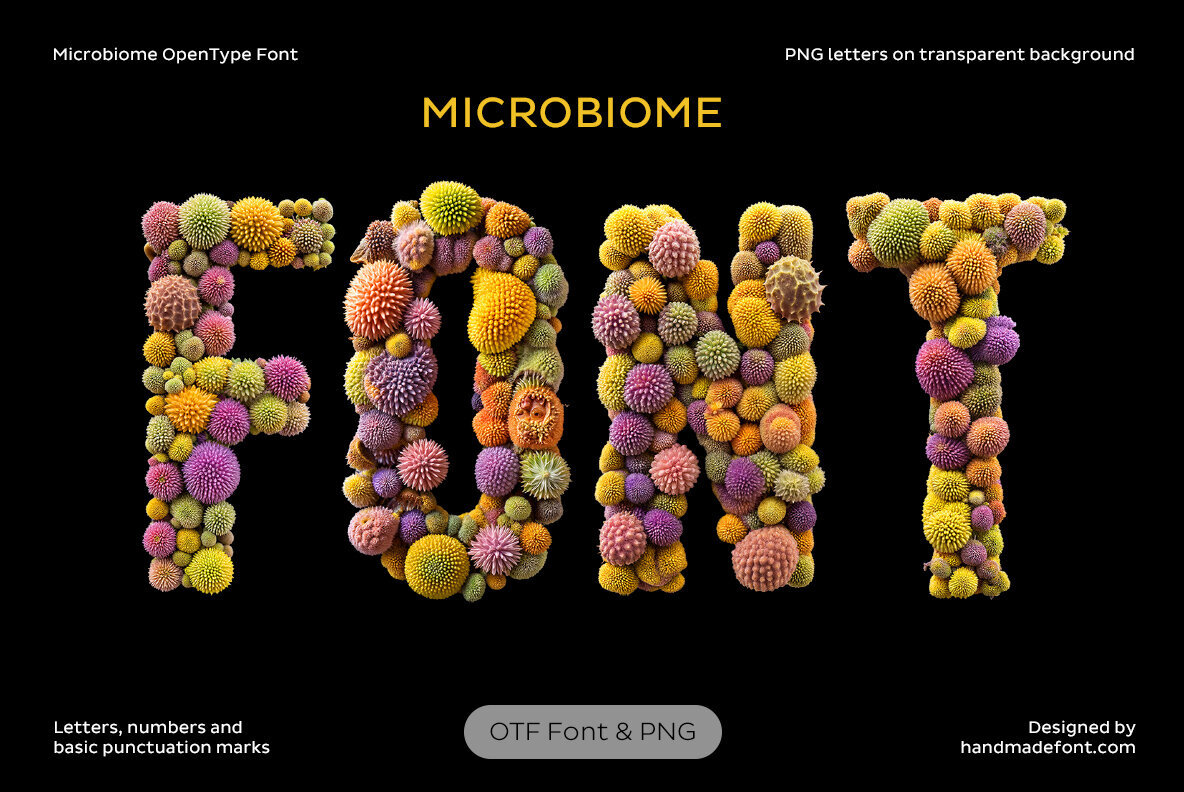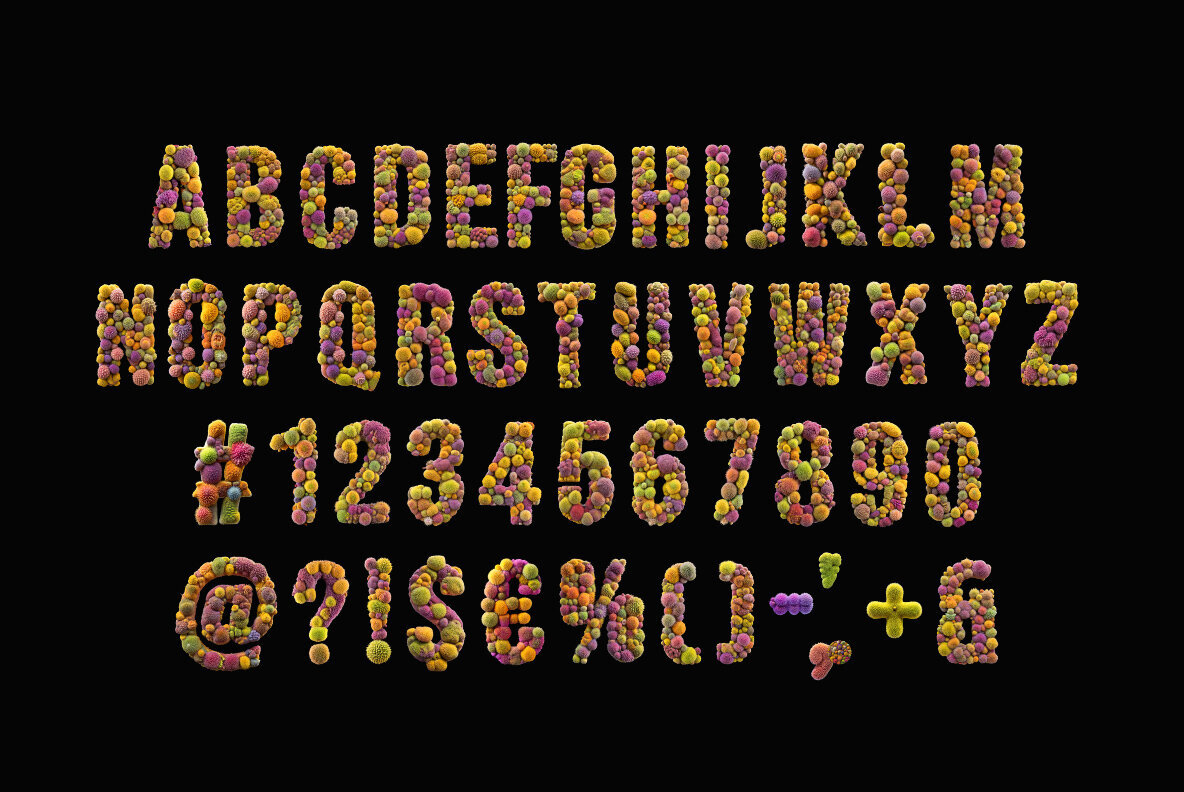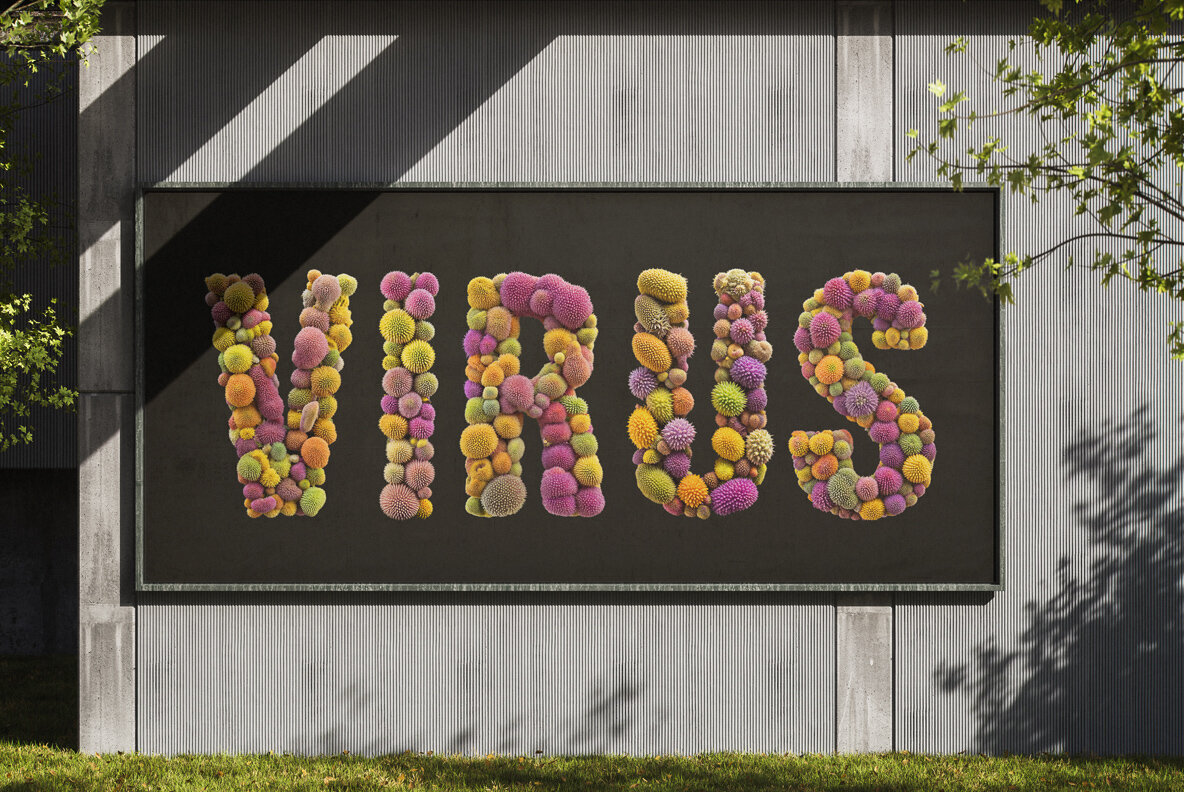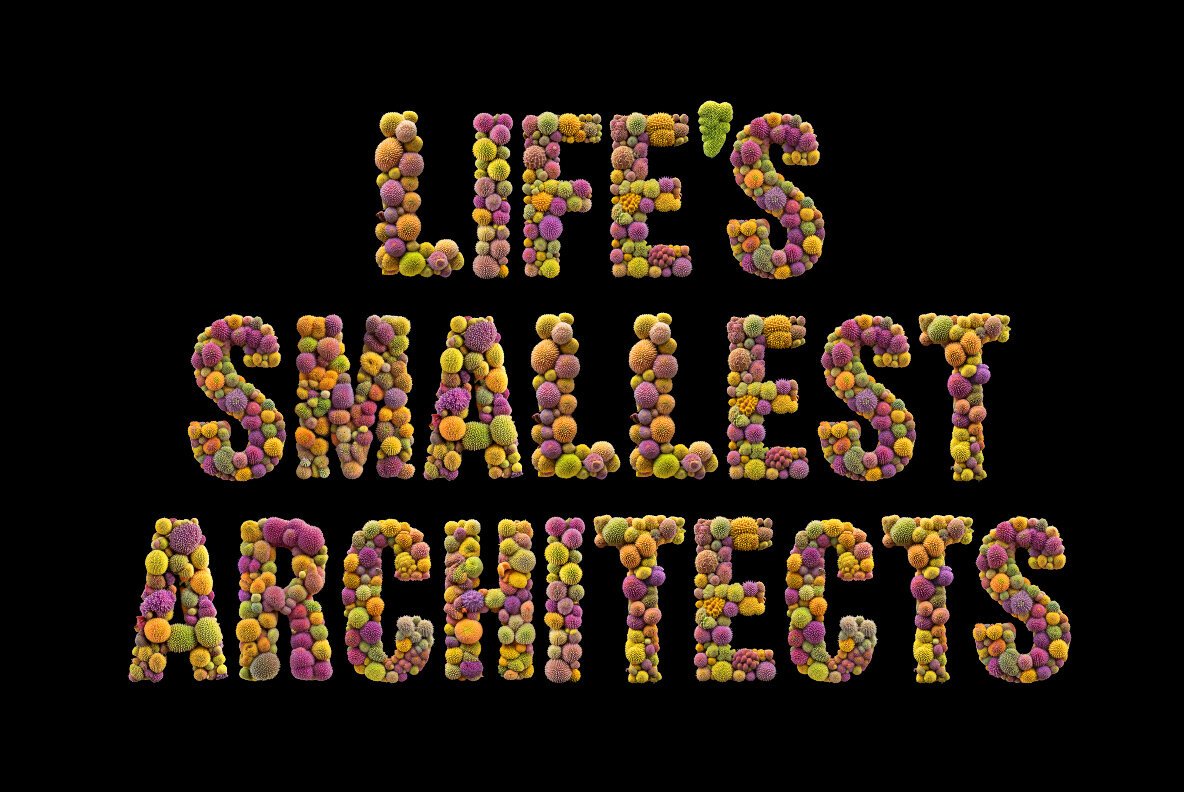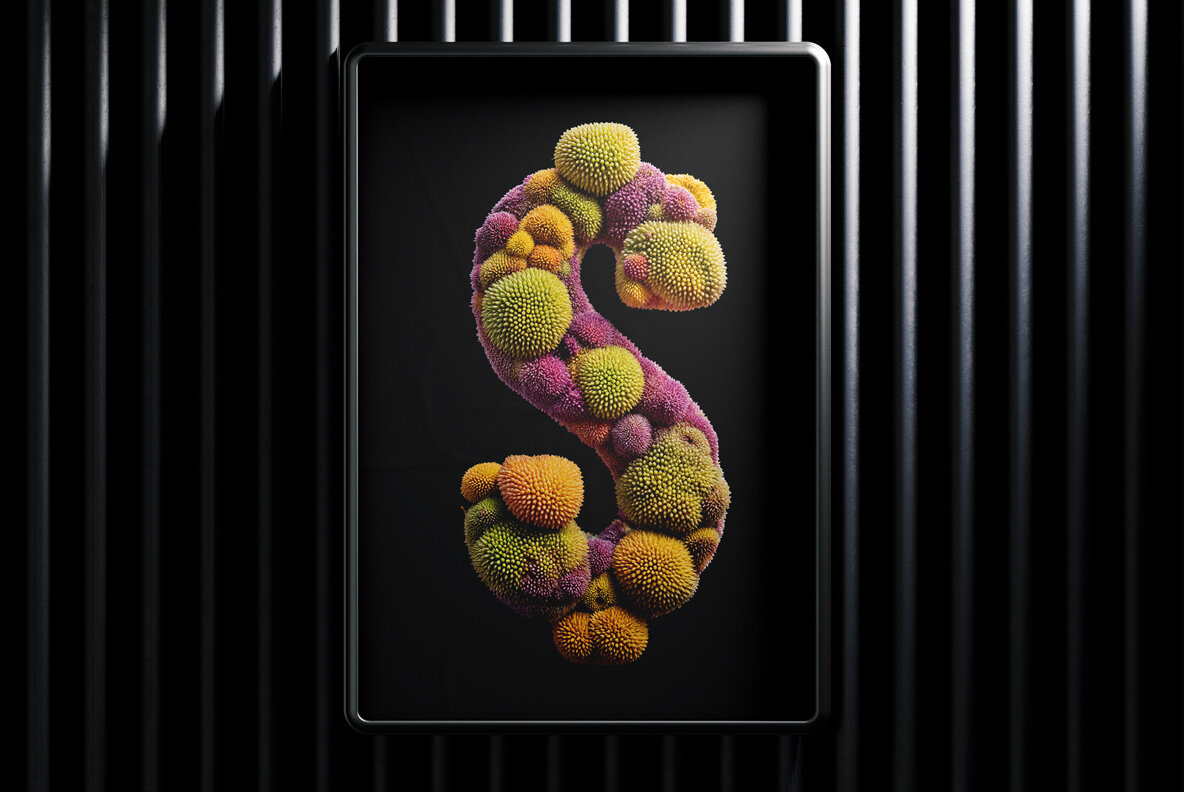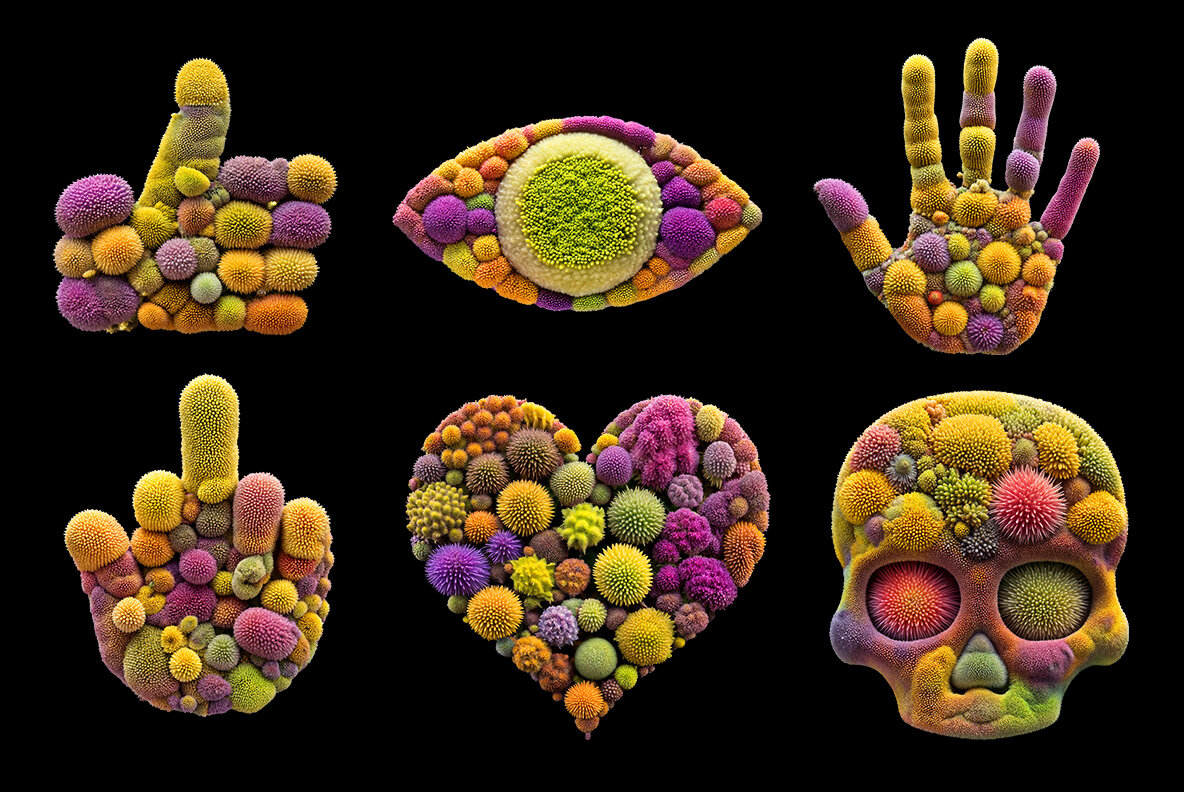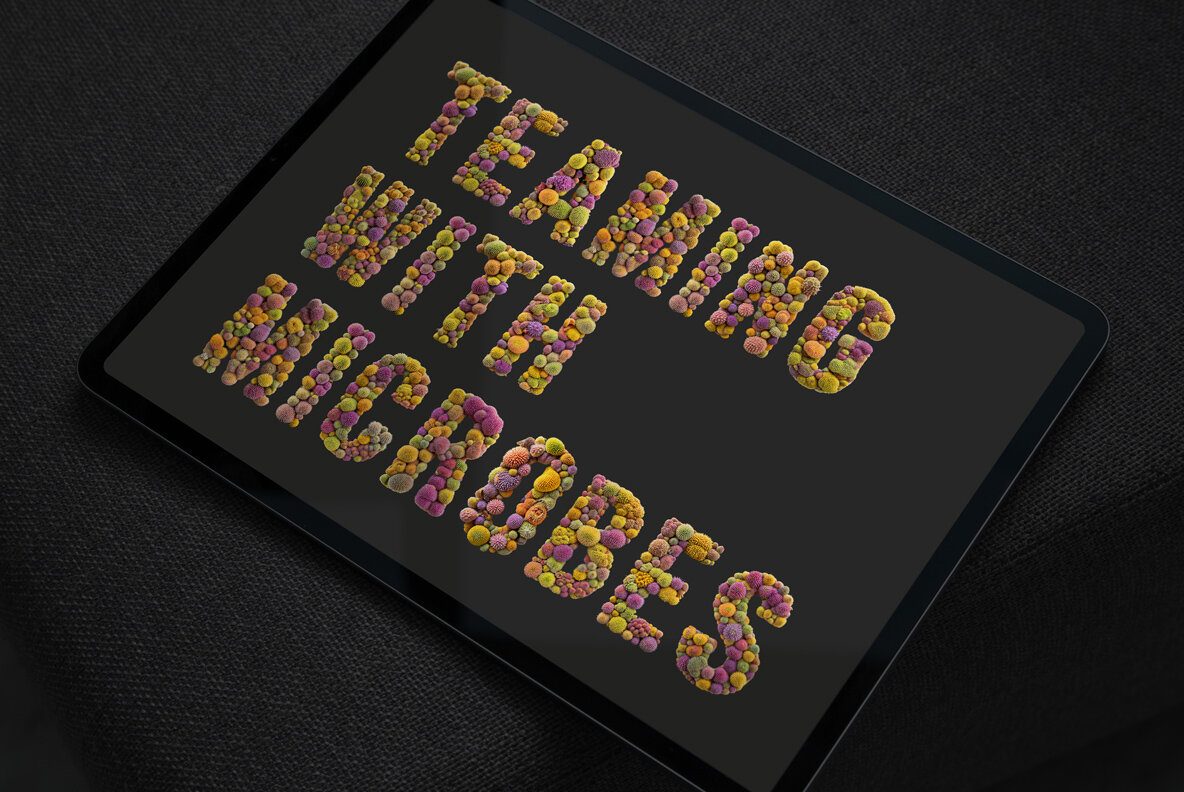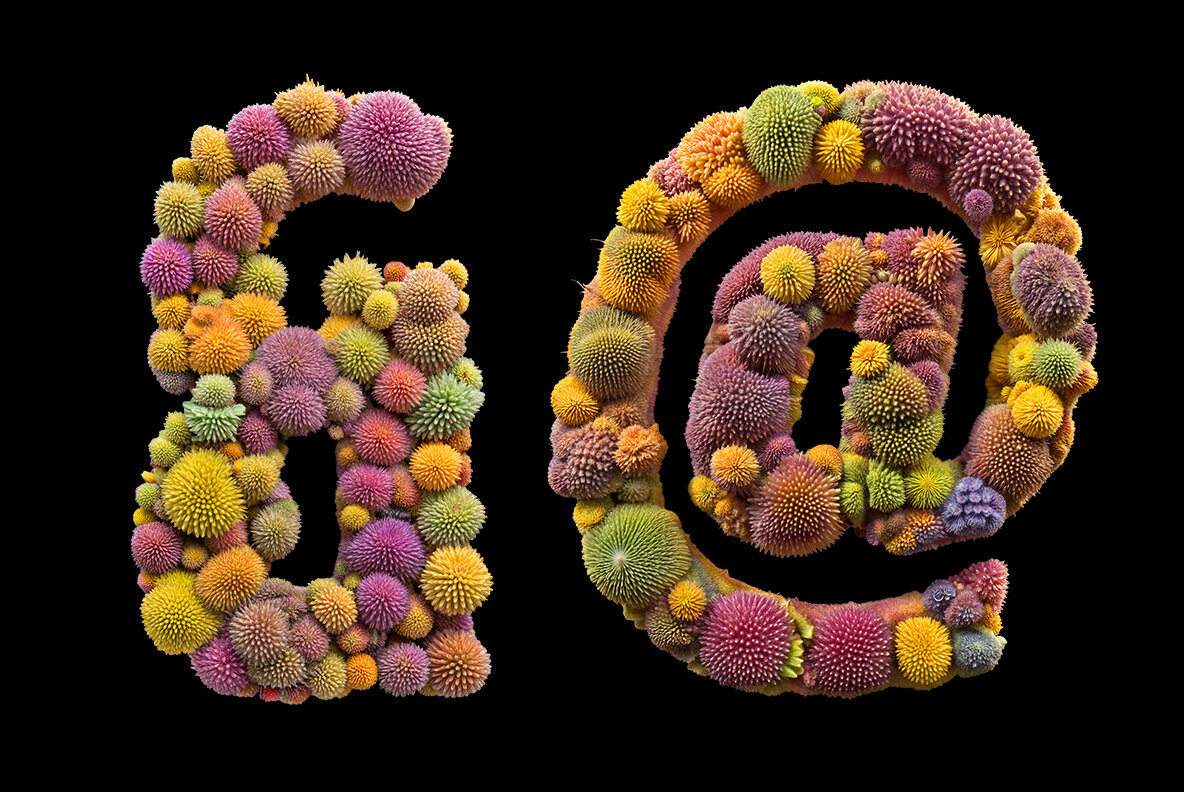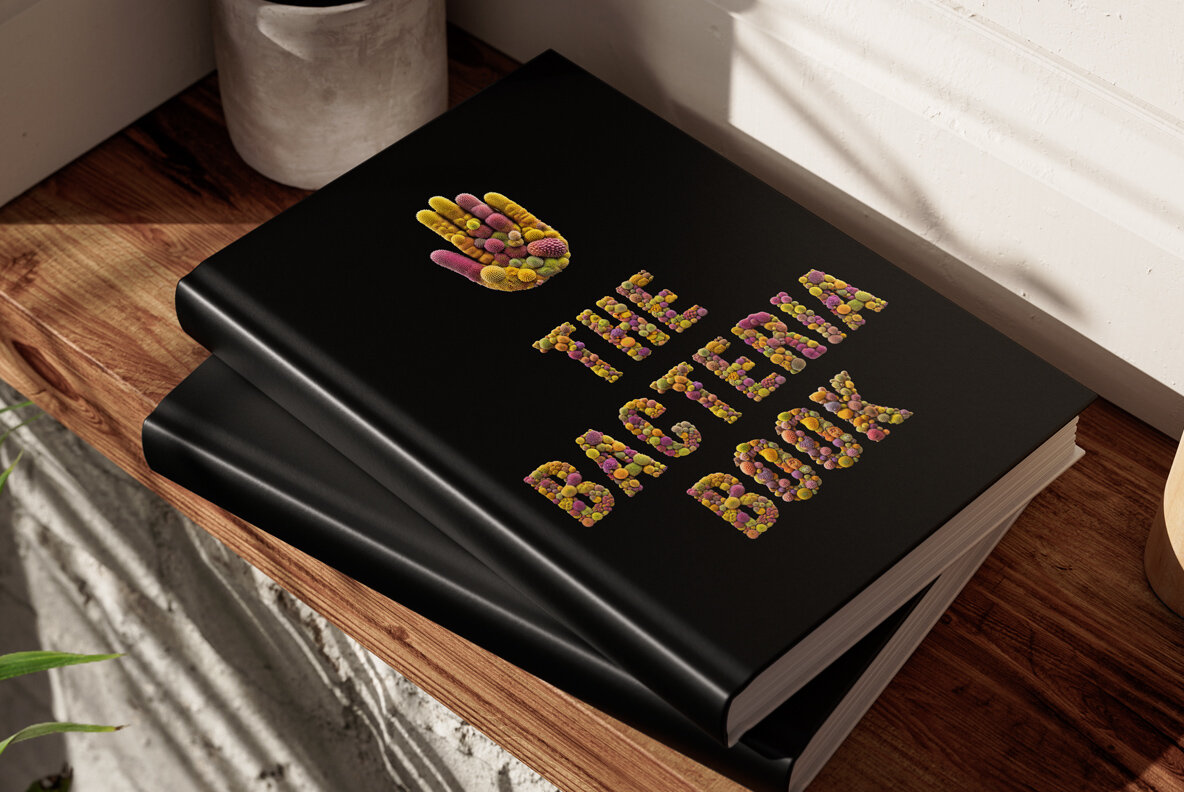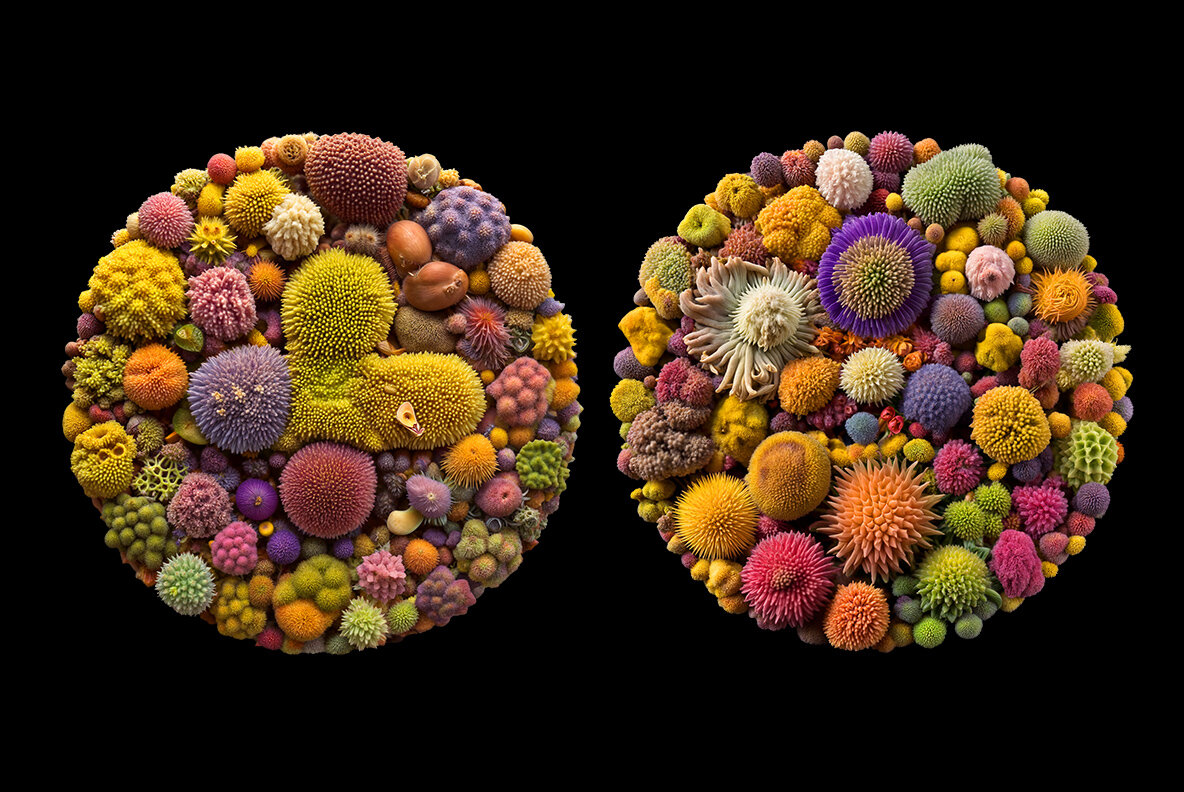
Experience the fascinating world of the Microbiome typeface, where each letter is a vibrant masterpiece crafted from colorful, spiky, and spherical elements. This imaginative design draws inspiration from the microscopic realm of bacteria, viruses, and pollen, breathing life into your projects with organic textures and captivating diversity. With a palette of yellows, purples, oranges, and greens, this font perfectly encapsulates the richness of microscopic ecosystems. Ideal for innovative projects in biology, health, sustainability, or nature-centric themes, Microbiome transforms the unseen into an artful and educational typographic journey.Microbiome Typeface: A Visually Dynamic Exploration